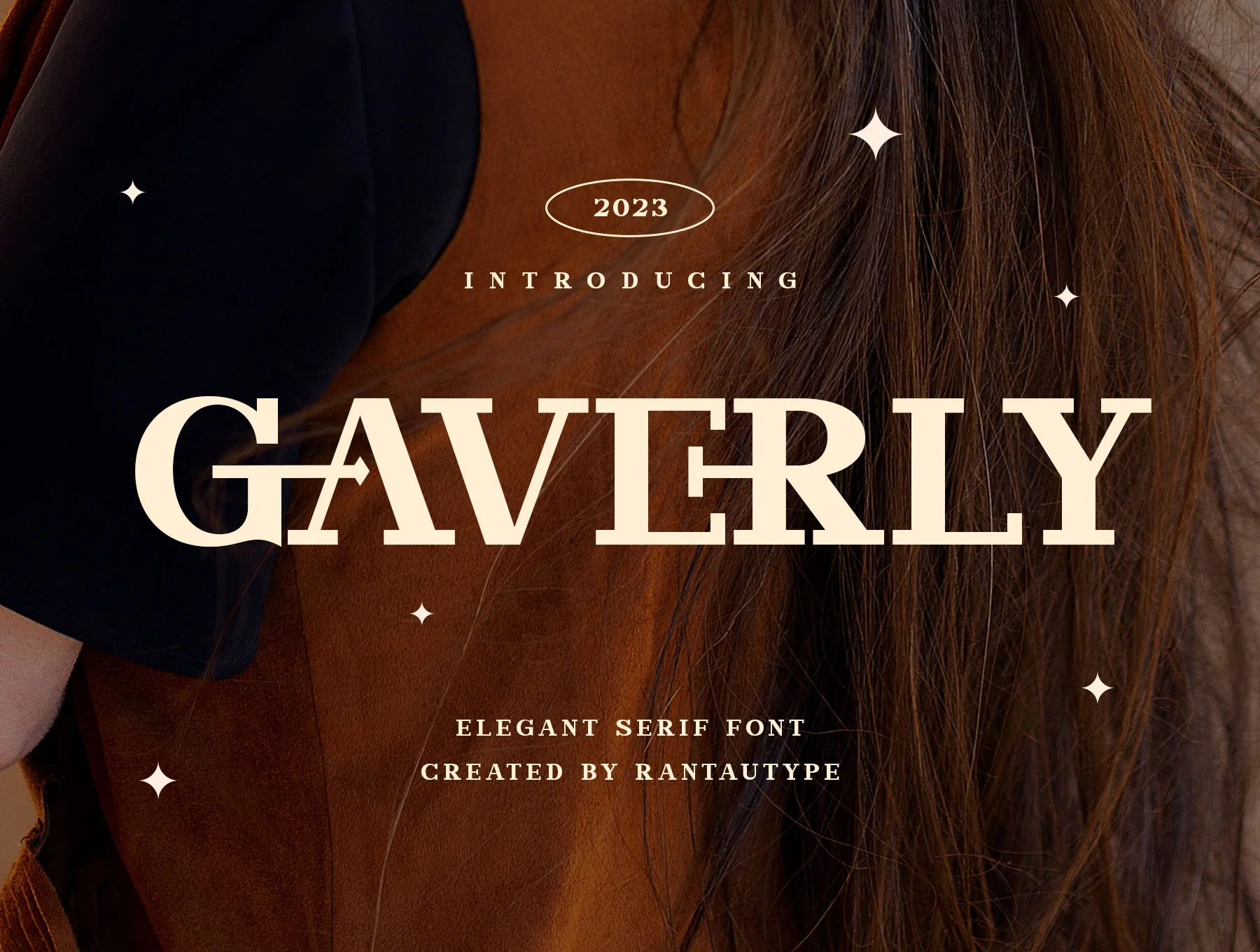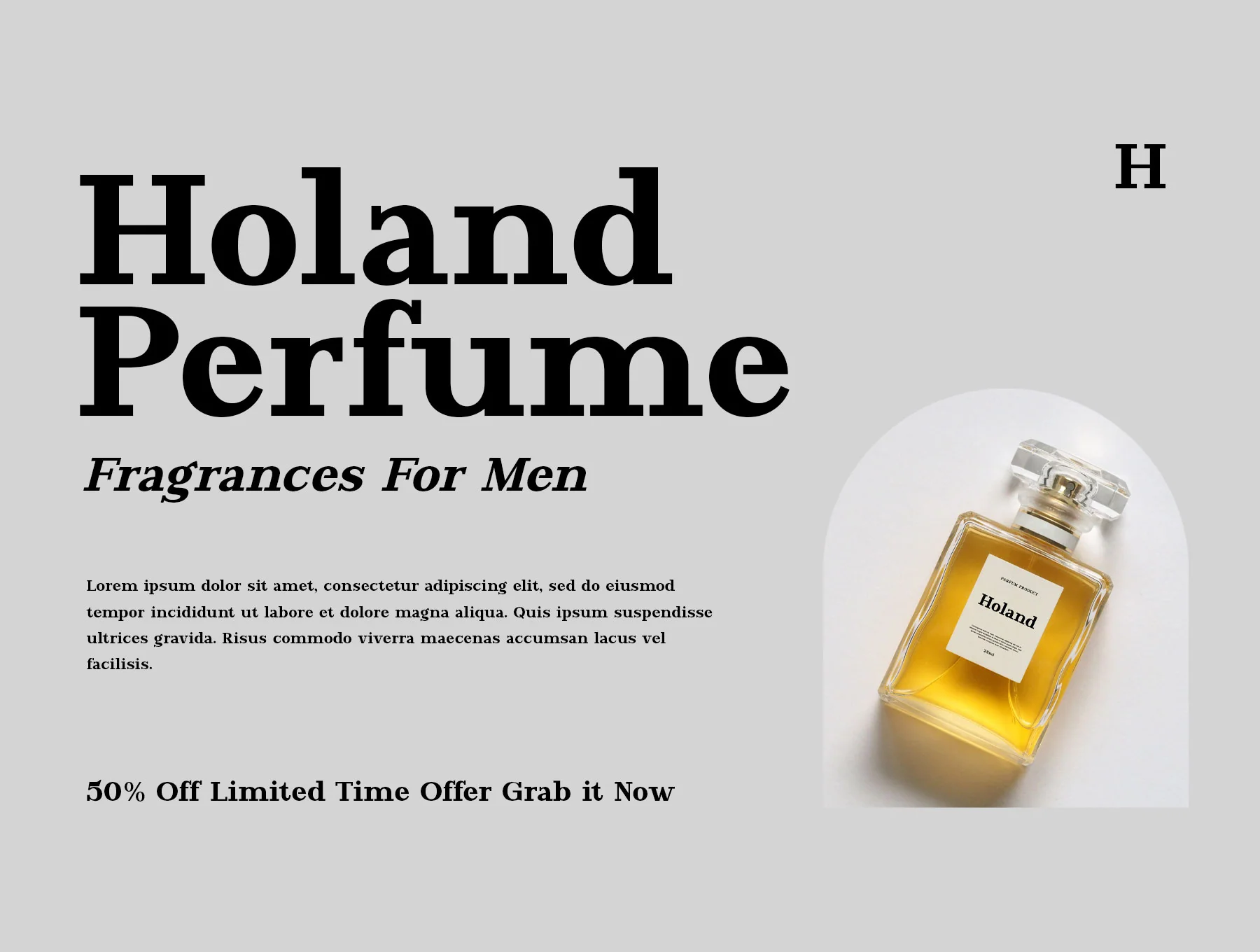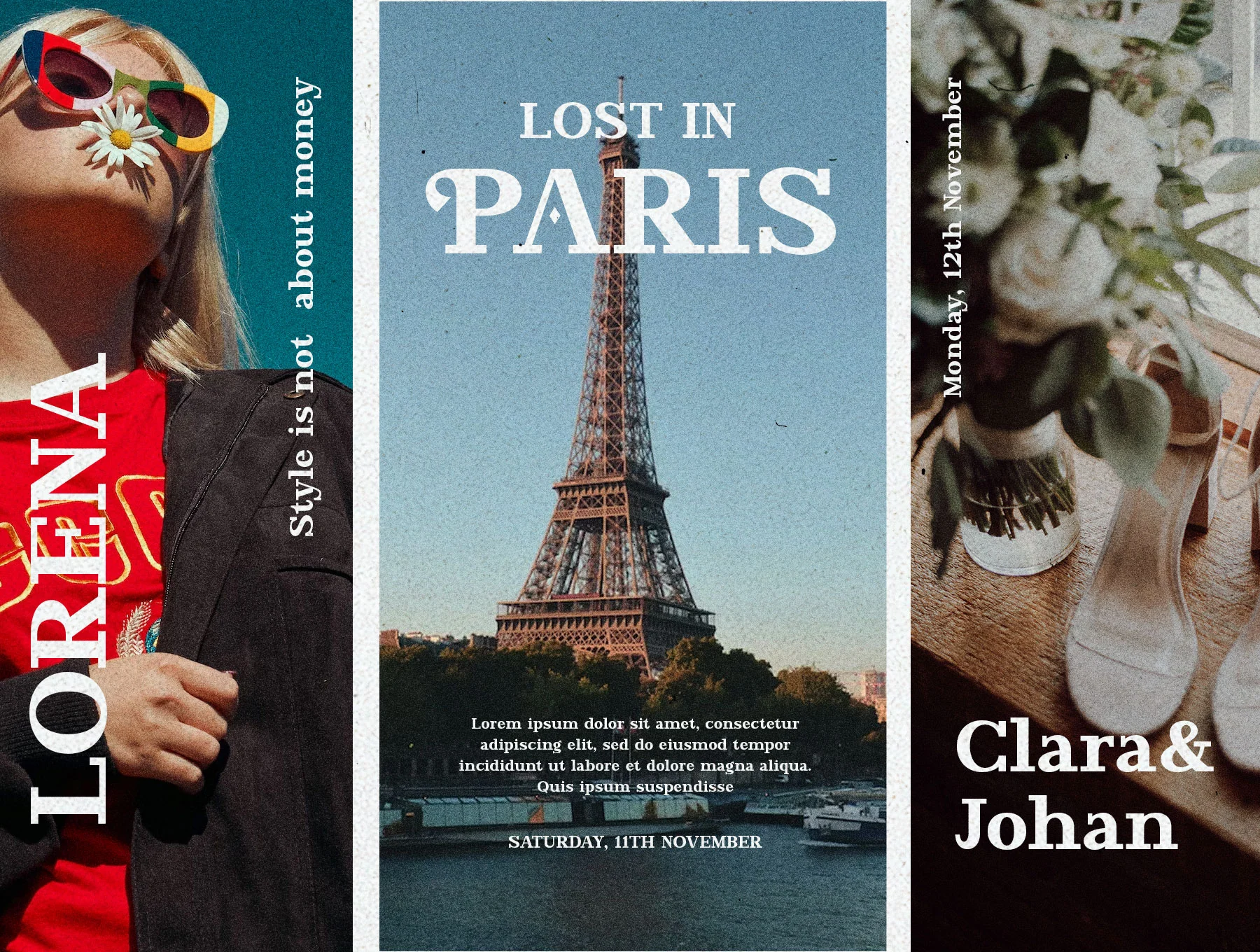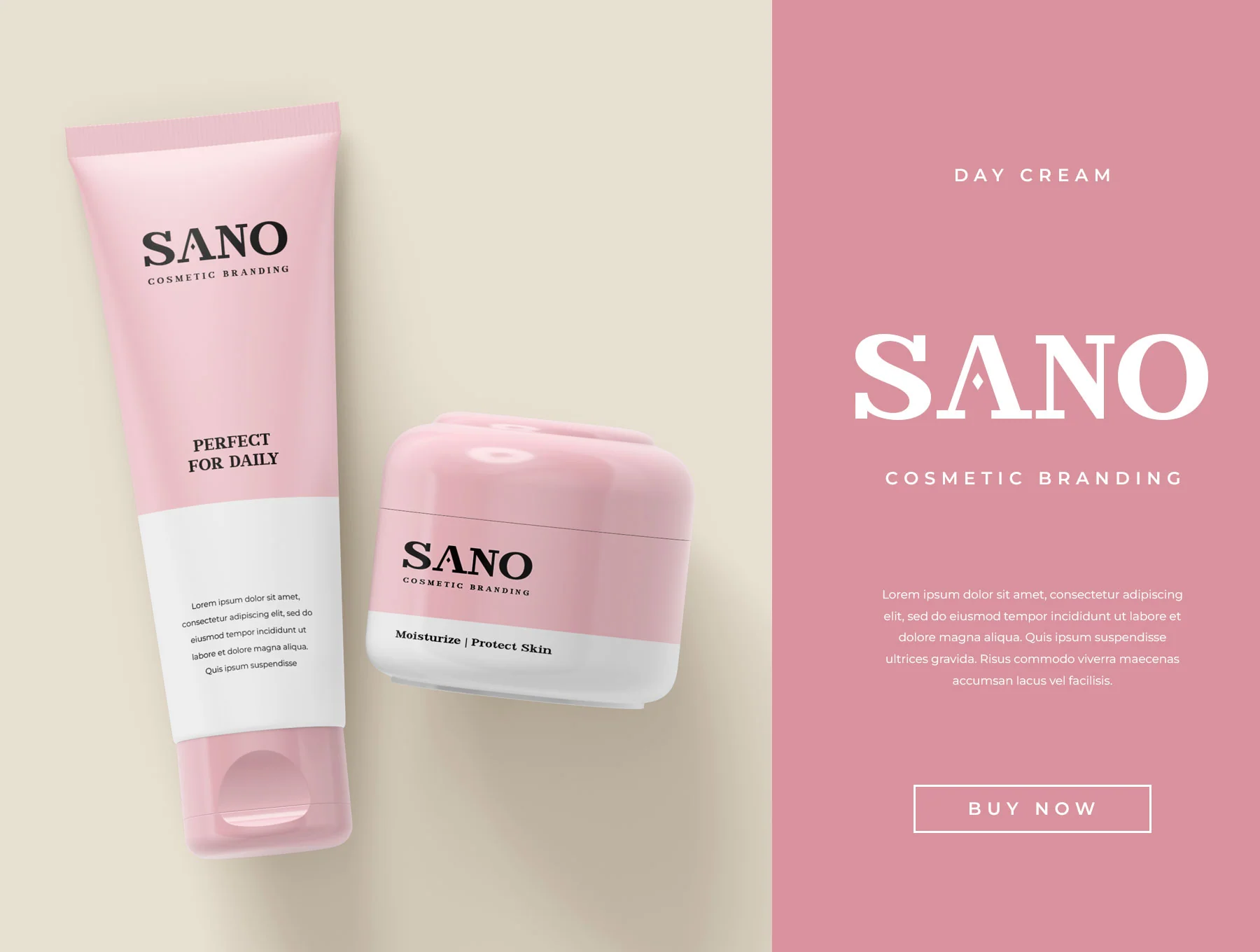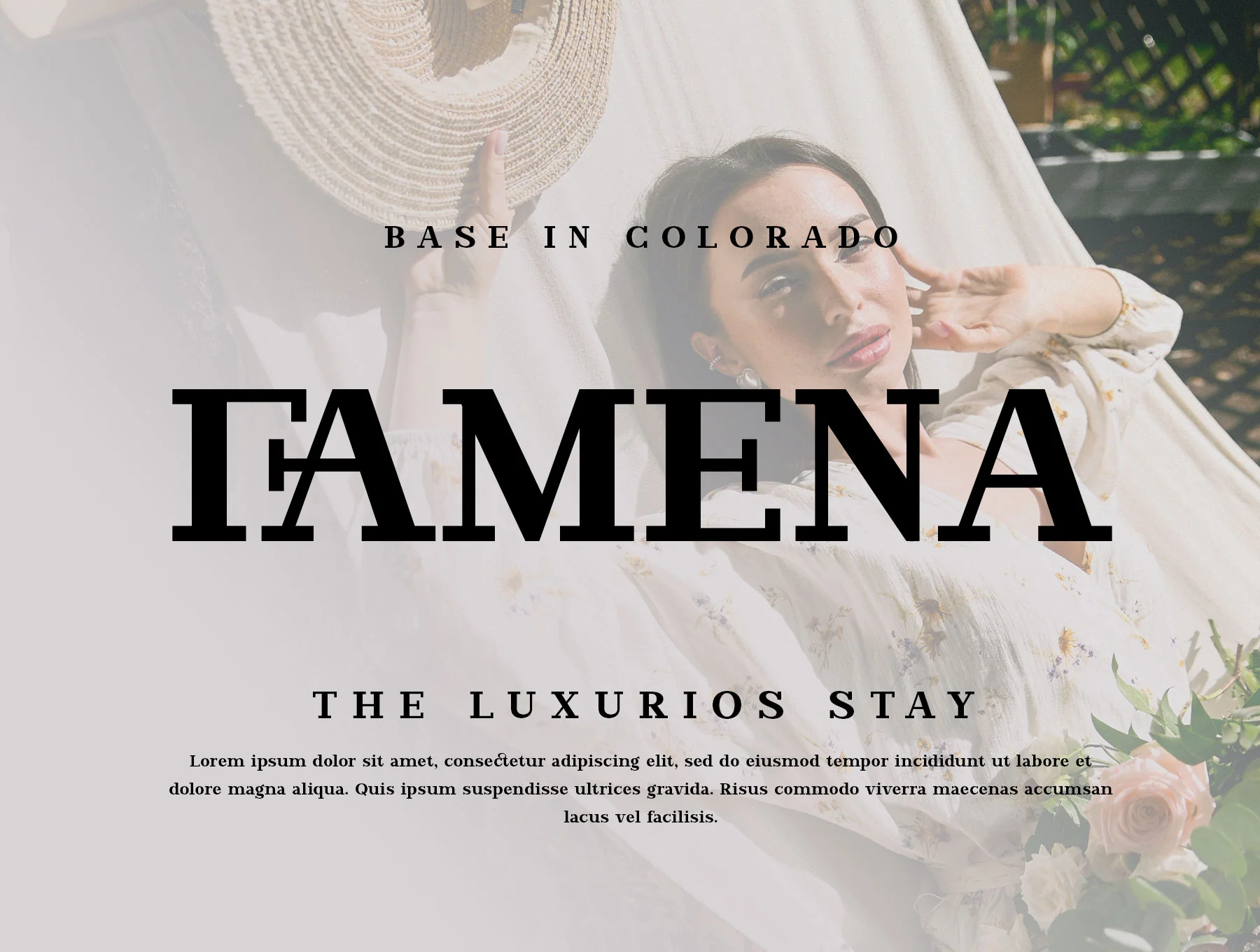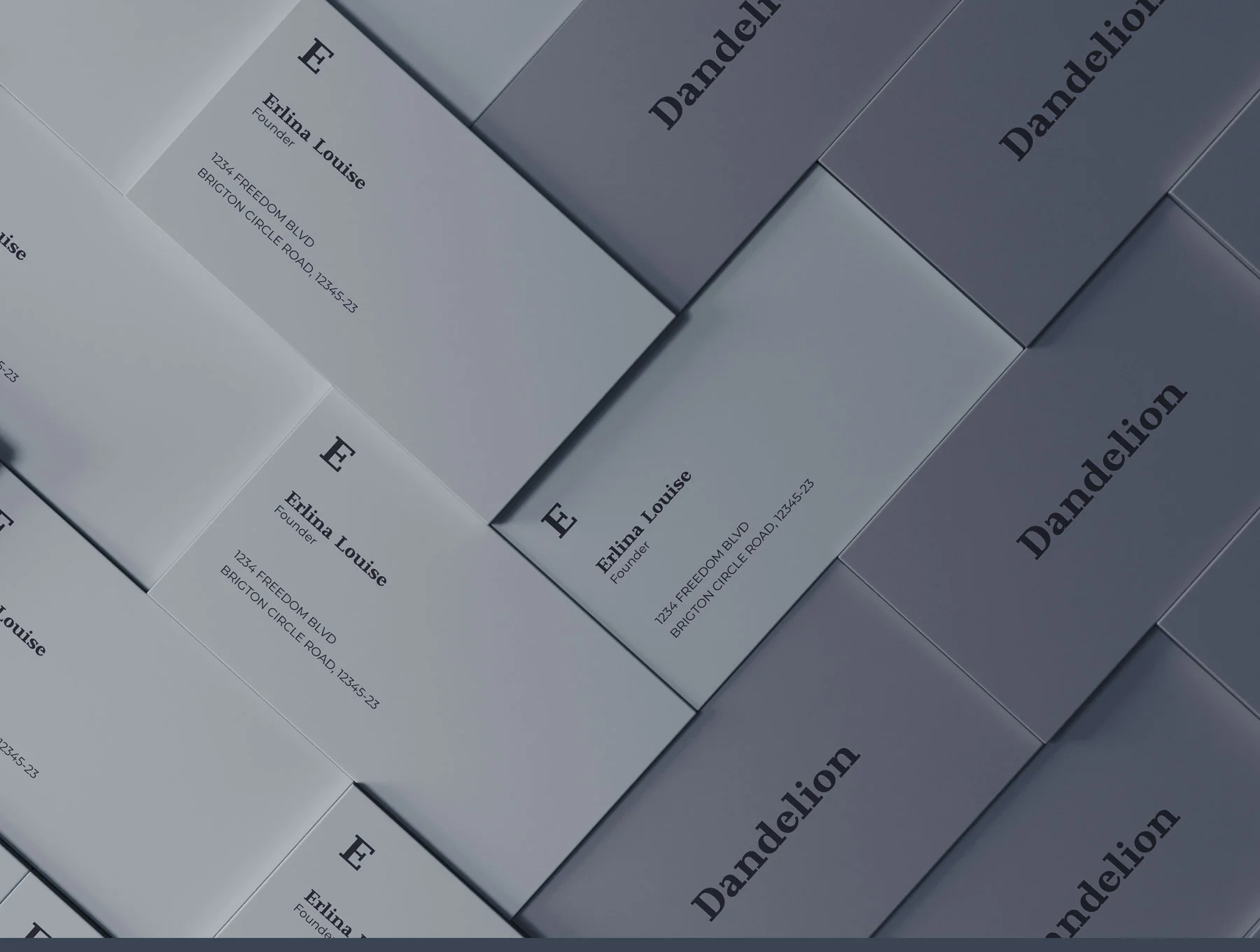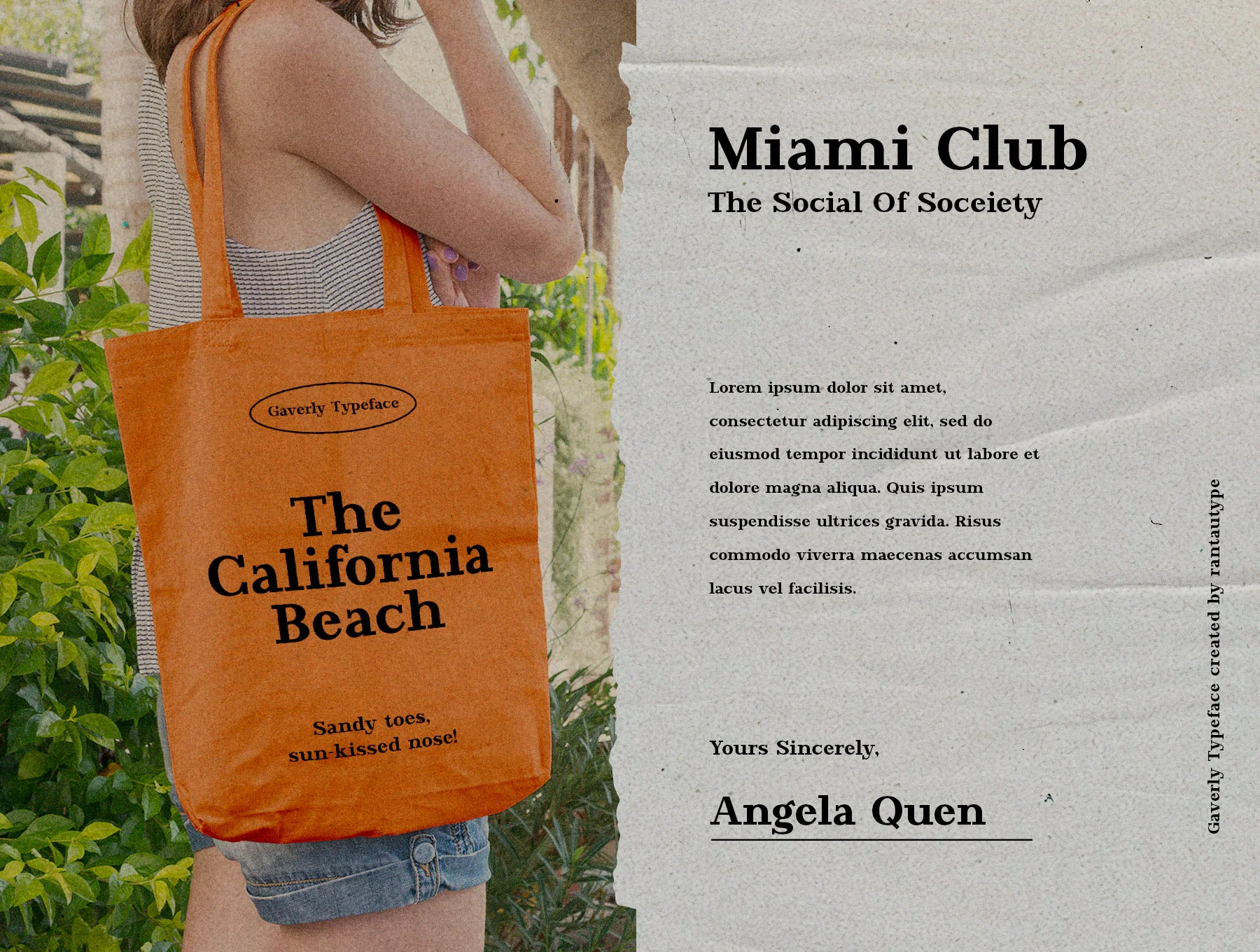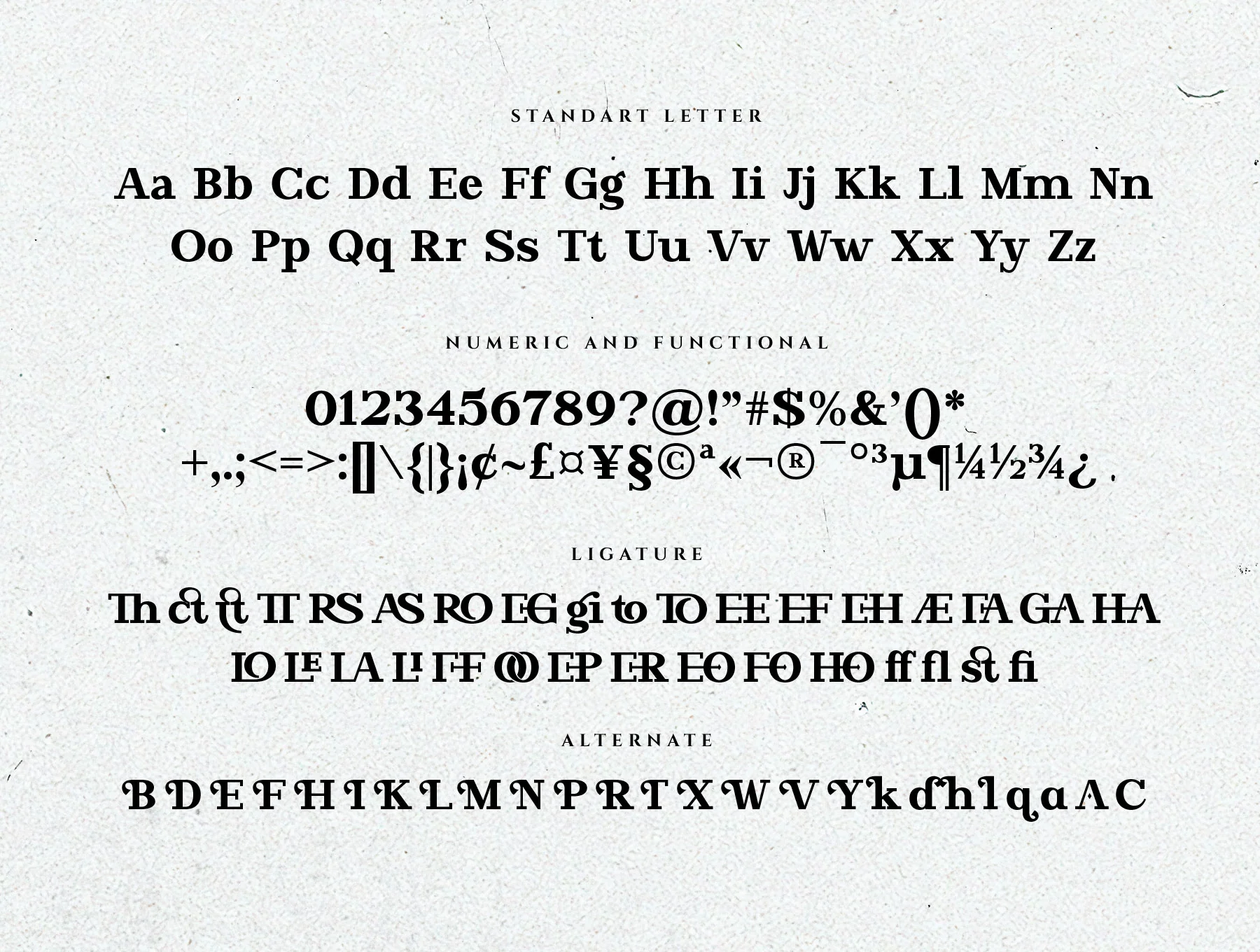
Gaverly Elegant Slab Serif Font
Refined Slab Serif Typeface
Standard letters from A-Z and a-z
Numerals and functional characters
Alternates with ligature options
Introducing Gaverly by Rantautype, an elegant slab serif display font with a refined, modern, premium feel. Includes regular and italic styles, alternates, ligatures, multilingual accents, OpenType features, A-Z/a-z, numbers, and symbols. Supplied in OTF, TTF, WOFF, and WOFF2 for logos, titles, branding, magazines, weddings, ads, and more.